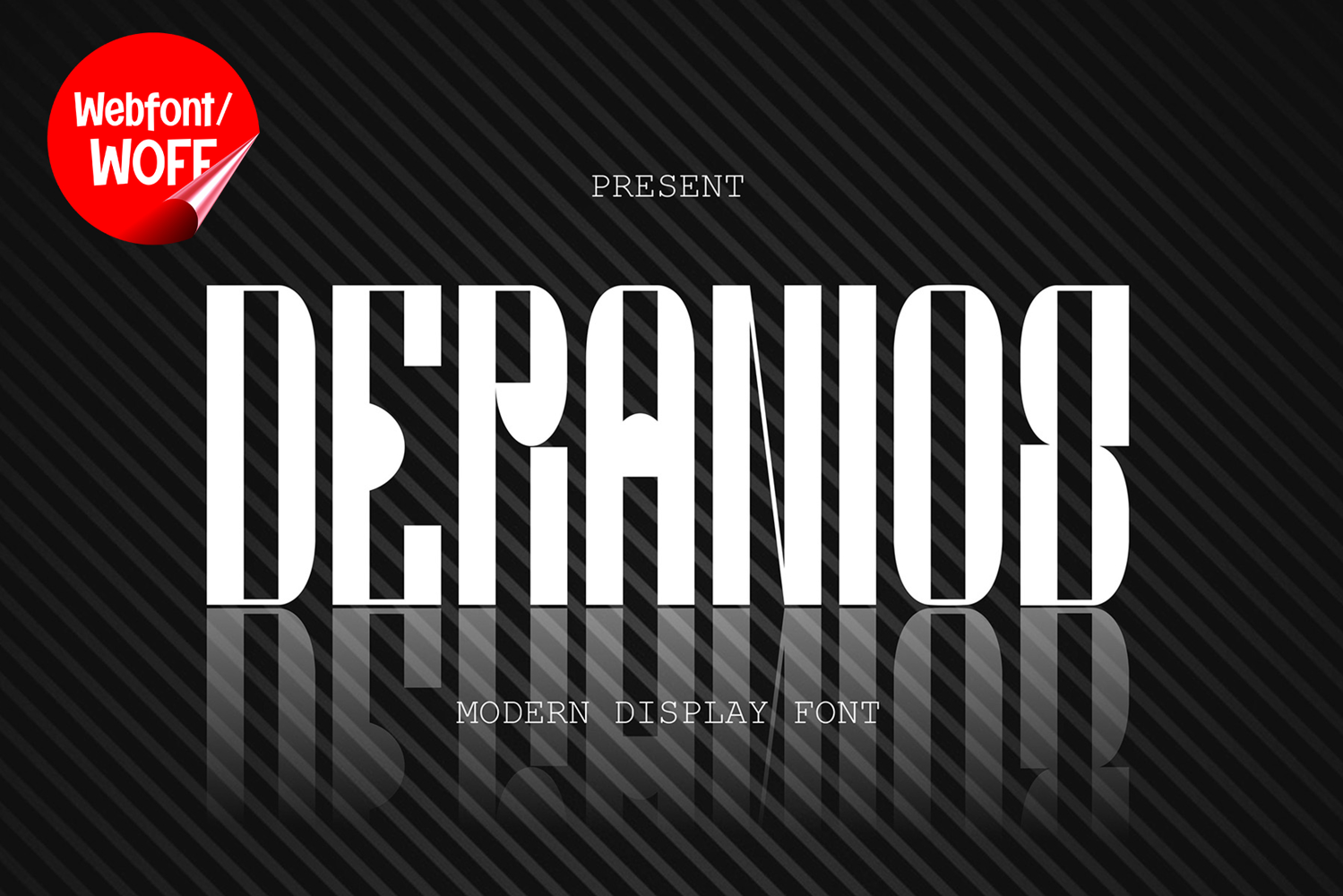
Deranios | Modern Display Webfont for Stylish Digital Design
Deranios is a modern display webfont designed to bring clean sophistication and contemporary style into modern website design. Inspired by minimal typography trends and modern branding aesthetics, this font features balanced letterforms, sleek curves, and bold visual structure that create a refined and eye-catching typographic identity. It is an excellent choice for projects that aim to deliver a stylish, modern, and professional visual appearance.
Deranios includes a complete set of uppercase characters designed with modern display aesthetics. The letterforms combine geometric precision with smooth visual flow, resulting in a clean and contemporary appearance. These characteristics make it ideal for headlines, banners, hero sections, branding layouts, and featured content where strong visual impact and clarity are essential.
In addition to letters, the font includes numbers and punctuation, allowing flexible usage across various parts of a website. It works well for creative portfolios, fashion branding, startup websites, product showcases, digital campaigns, and editorial layouts. Each character maintains a consistent modern display style, ensuring a cohesive and unified visual identity throughout the design.
With multilingual support, Deranios includes a wide range of accented characters, making it suitable for international websites and global audiences. This ensures content remains clear and visually consistent across different languages while preserving the clean and modern aesthetic.
The modern display style of Deranios makes it especially suitable for luxury branding, lifestyle websites, technology companies, creative agencies, and contemporary digital projects. Its elegant and structured appearance creates a professional atmosphere that helps websites stand out in visually competitive environments. The balanced proportions and refined details enhance readability while maintaining a stylish visual presence.
Despite its decorative display appearance, Deranios is designed with readability in mind. The spacing and proportions are carefully balanced to ensure clarity, particularly in large headings and promotional text. This allows designers to use the font effectively for impactful titles and visual branding without sacrificing usability.
Deranios is a webfont that combines modern display aesthetics with high-performance digital functionality. Its sleek forms, clean structure, and contemporary character create a distinctive typographic presence that enhances website design. For projects that require a stylish, elegant, and visually engaging display font, Deranios offers a versatile and reliable solution.